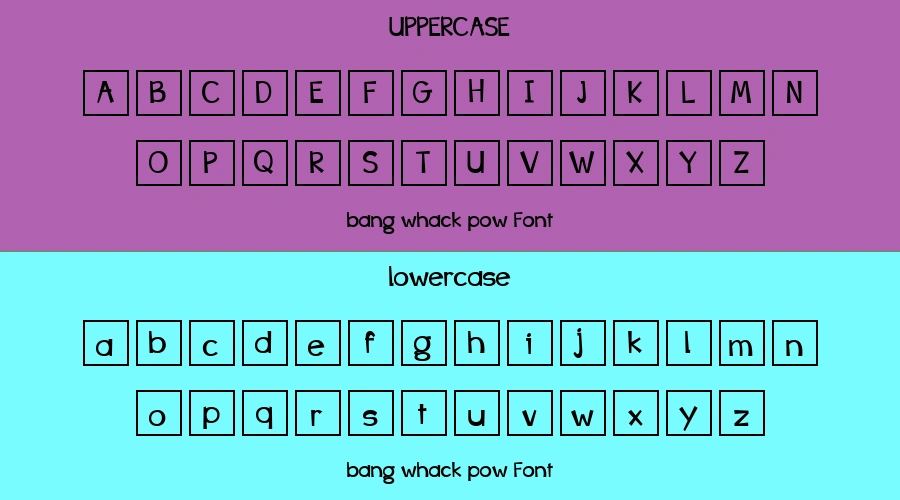
About bang whack pow Font
bang whack pow Font represents a sophisticated approach to type design, balancing balanced weights with integrity. Perfect for mobile applications, this font family showcases impressive durability and design excellence throughout its character set. Designers appreciate its versatility and reliability.
Designers will appreciate nuanced touches including natural flow and contextual alternates, adding sophistication to any project. These features become apparent in certification marks, where body text reading matters most. The careful treatment of terminal angle and brand personality ensures optimal performance.